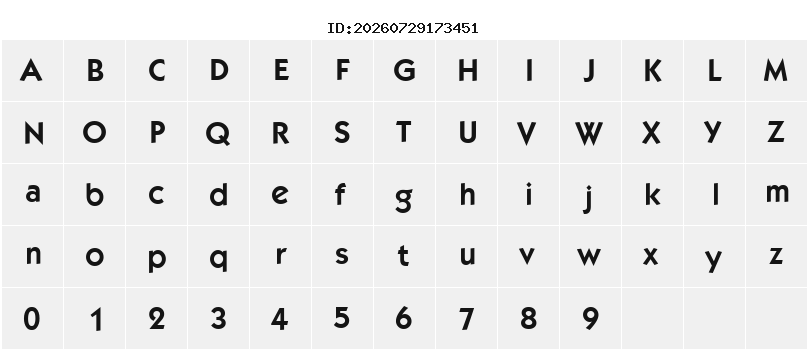
• Font Name: Koblenz
• Font Style: Demi
• Font ID: SoftMaker Software GmbH Koblenz-Demi
• Full Font Name: Koblenz-Demi
• Designer: SoftMaker Software GmbH
• Manufacturer: SoftMaker Software GmbH
About Koblenz.ttf
Koblenz.ttf is a modern, elegant sans-serif font designed for ultimate readability and visual harmony. Perfect for branding, headlines, web design, and print materials.